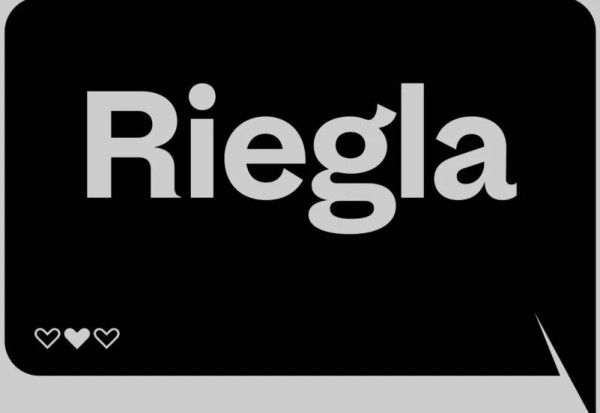
Riegla Font
Riegla Font is a sans serif family designed by Interval Type who was inspired by modern sans serif. This Font is a multifunctional non-neutral grotesk that draws inspiration from the early sans-serif designs of the 19th century such as Figgins Sans, Breite Grotesk and various Gothics of that era, placing emphasis on contrast and distinctiveness of the pre-rationalisation period. Riegla’s design is also reminiscent of the simplified upright contrast slab-serif typefaces.
Packed with features and special characters, Riegla is a go to grotesk that tries to find a perfect balance of functionality and personality. It is designed to be highly legible in small sizes as well as crafted beautifully to stand out in title settings. 3 sets of stylistic alternates bring enough versatility to allow finding just the personality you are looking for.
Riegla Font was designed as a “friend” companion to Riegraf, which is a fusion serif font family also available on intervaltype.com. These two families share many commonalities and will work well together creating a page that truly stands out typographically.